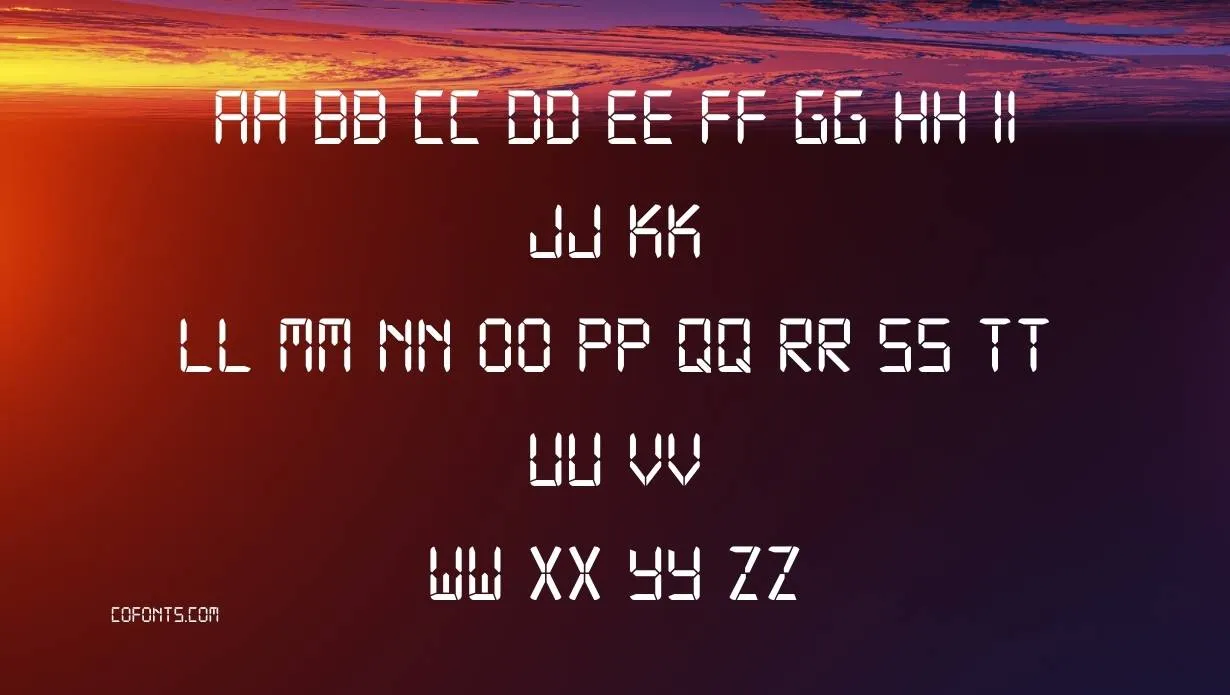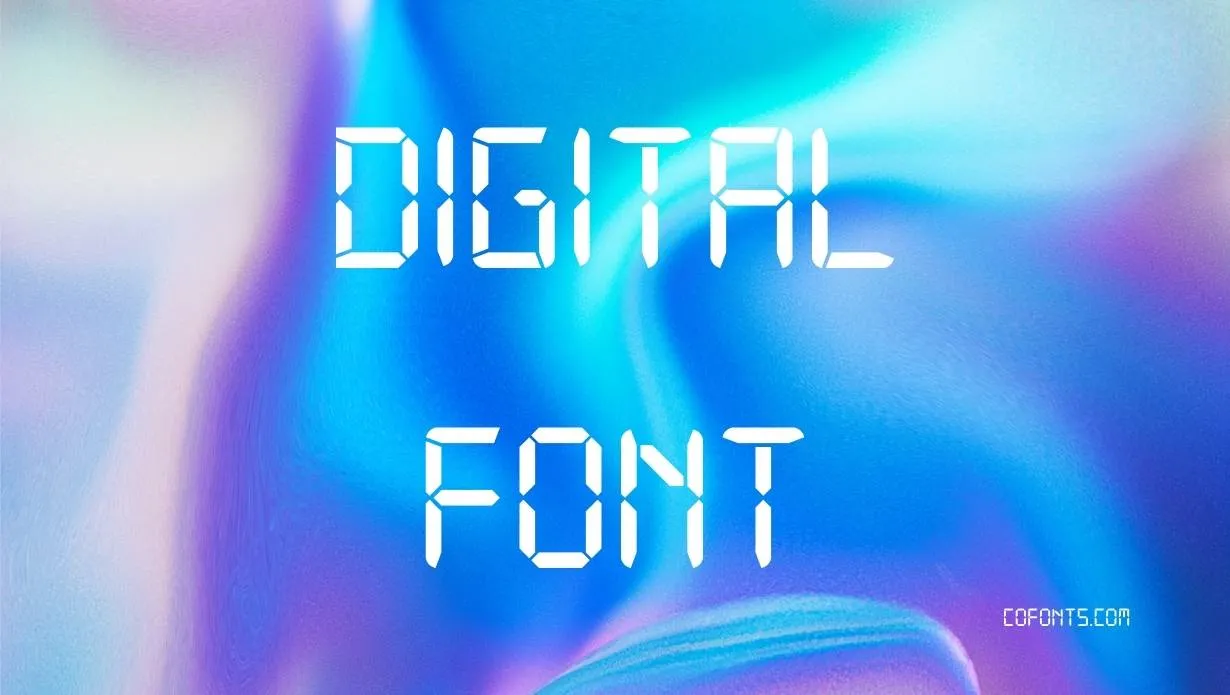
About Digital Font
Digital Font is a cutting-edge typeface that captures the essence of modern technology and futuristic design. Inspired by LED displays, computer interfaces, and cyber aesthetics, this font features clean, geometric lines with a distinct digital character that evokes the feeling of advanced technology.
With its pixel-perfect precision and tech-inspired aesthetics, Digital Font is perfect for creating interfaces that need to communicate innovation, speed, and technological advancement. The font maintains excellent readability while delivering a strong futuristic vibe that works across various digital and print applications.
Design Characteristics
- Geometric construction with digital precision
- LED-inspired character forms
- Pixel-perfect alignment and spacing
- High-tech, futuristic aesthetic
- Excellent readability in digital interfaces
- Optimized for both display and UI text
- Multiple weight variations
- Extended character set
- Programming-friendly symbols
- Perfect for coding and tech documentation
Best Uses
- Technology company branding
- Gaming interfaces and HUD displays
- Cyberpunk and sci-fi designs
- Digital dashboards and control panels
- Programming and coding environments
- Tech startup websites and apps
- Electronic product packaging
- Futuristic event promotions
Digital Font is perfect for tech startups, gaming companies, and digital agencies looking to add a futuristic touch to their branding and interfaces.